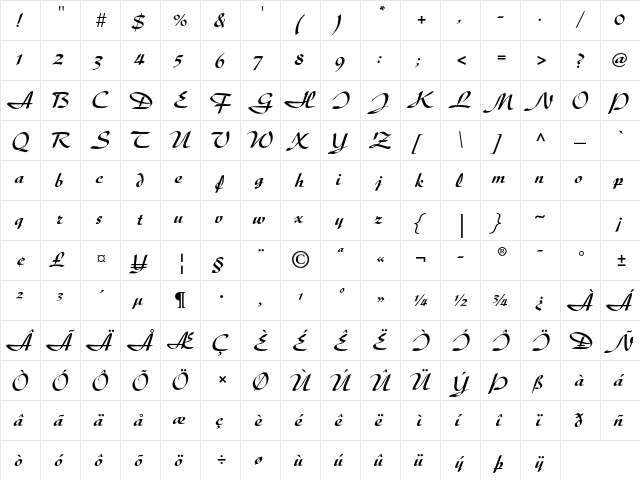
Diskus LT Std Bold
| Designer | Martin Wilke |
Design Context for Diskus LT Std Typeface
Diskus LT Std is a composed and adaptable typeface that performs quietly and consistently across a wide range of design contexts. The heavy weight commands attention and anchors typographic hierarchies.